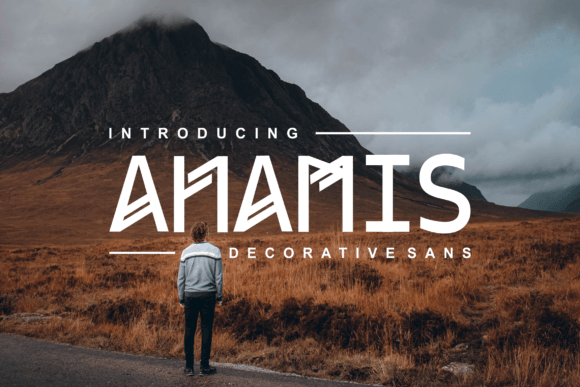
Anamis Font: Unleash Your Creativity with a Dash of Whimsy
In the realm of digital designs, Anamis Font emerges as a dazzling sans serif display font, poised to elevate your creative visions to new heights. Crafted with meticulous precision by the talented artisans at zerologicstudio, Anamis possesses an irresistible charm that breathes life into your most audacious ideas.
Unleash the boundless possibilities of Anamis – a font that masterfully combines a classic sans serif structure with a touch of playful whimsy. Its seamless strokes exude an effortless elegance, while its carefully crafted curves introduce a captivating sense of movement and energy. Imagine your designs imbued with the magic of Anamis, captivating your audience with its inherent charm and sophistication.
Step into a world where creativity knows no bounds, where your designs transcend the ordinary and embrace the extraordinary. Anamis is the perfect companion for web banners, adding a touch of enchantment to your online presence. Enchant your audience with captivating headlines that dance across the screen, leaving an indelible mark on their hearts and minds.
With Anamis, your web banners become more than mere advertisements – they transform into immersive experiences that draw viewers in and leave them spellbound. Its enchanting curves and graceful lines weave a captivating narrative, inviting your audience to embark on a journey of discovery and delight.
But Anamis is more than just a pretty face – it's a font engineered for excellence. Its crisp and legible letterforms ensure that your message is conveyed with unwavering clarity, while its versatile nature allows it to adapt seamlessly to a wide range of design aesthetics. From bold and vibrant to subtle and understated, Anamis effortlessly complements your unique vision, enhancing your designs with its timeless beauty.
Don't let your creativity be confined by ordinary fonts – embrace the magic of Anamis and witness the transformation it brings to your digital creations. Its whimsical charm and unwavering elegance will captivate your audience, leaving them in awe of your design prowess.